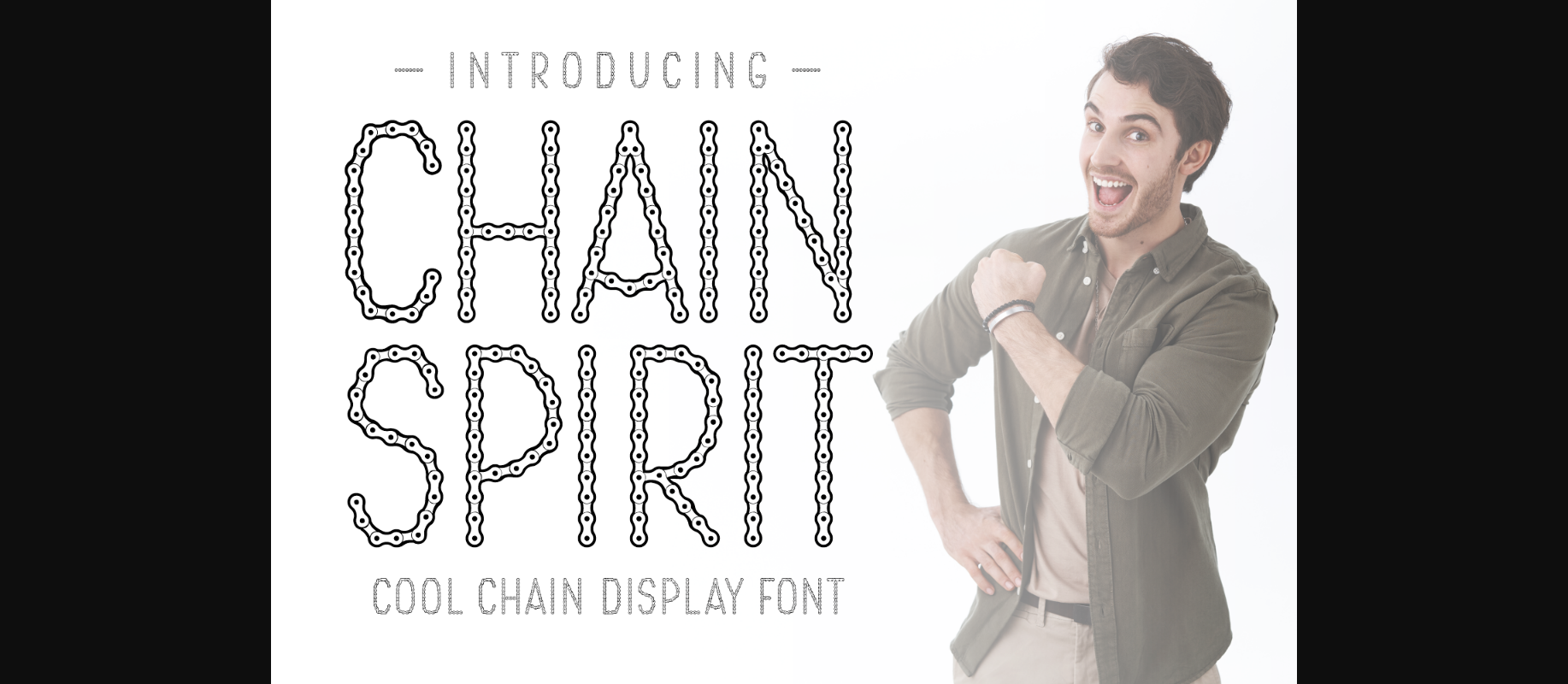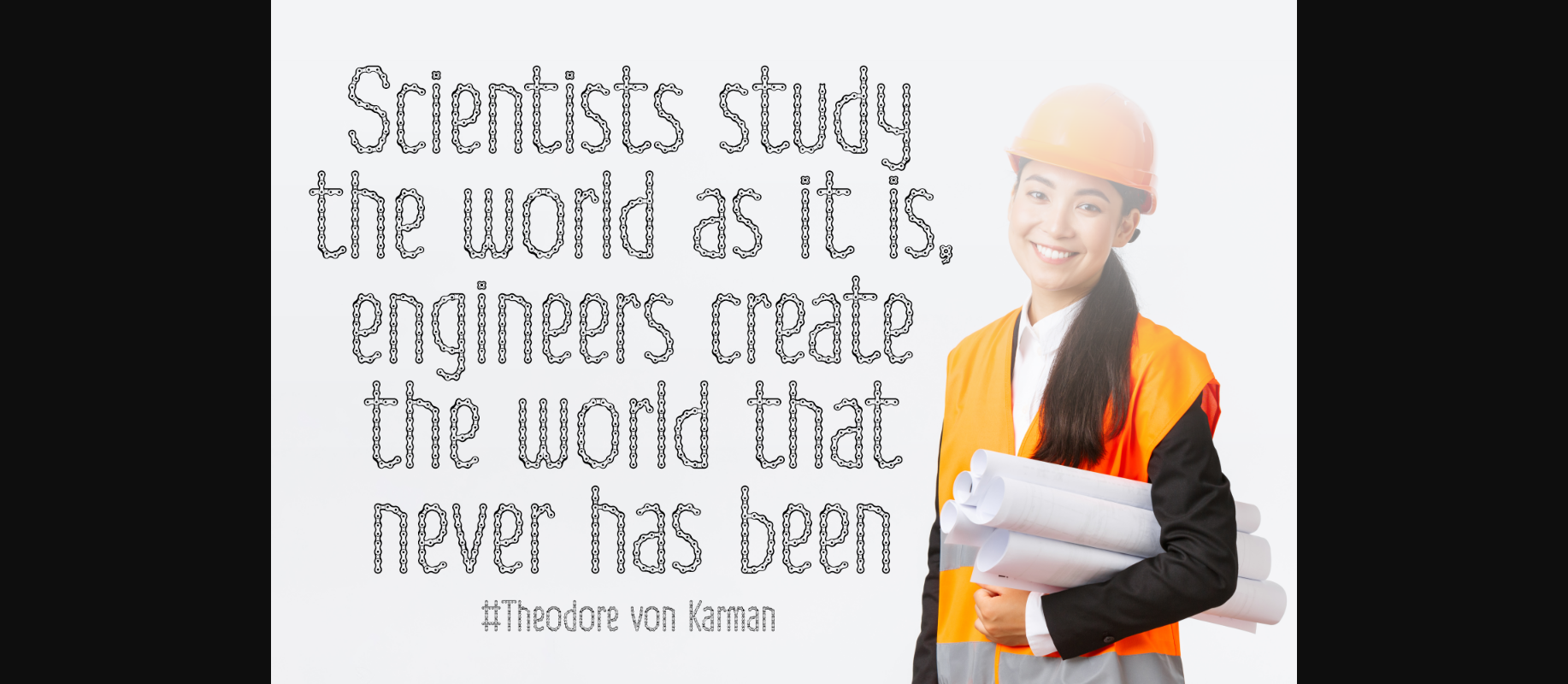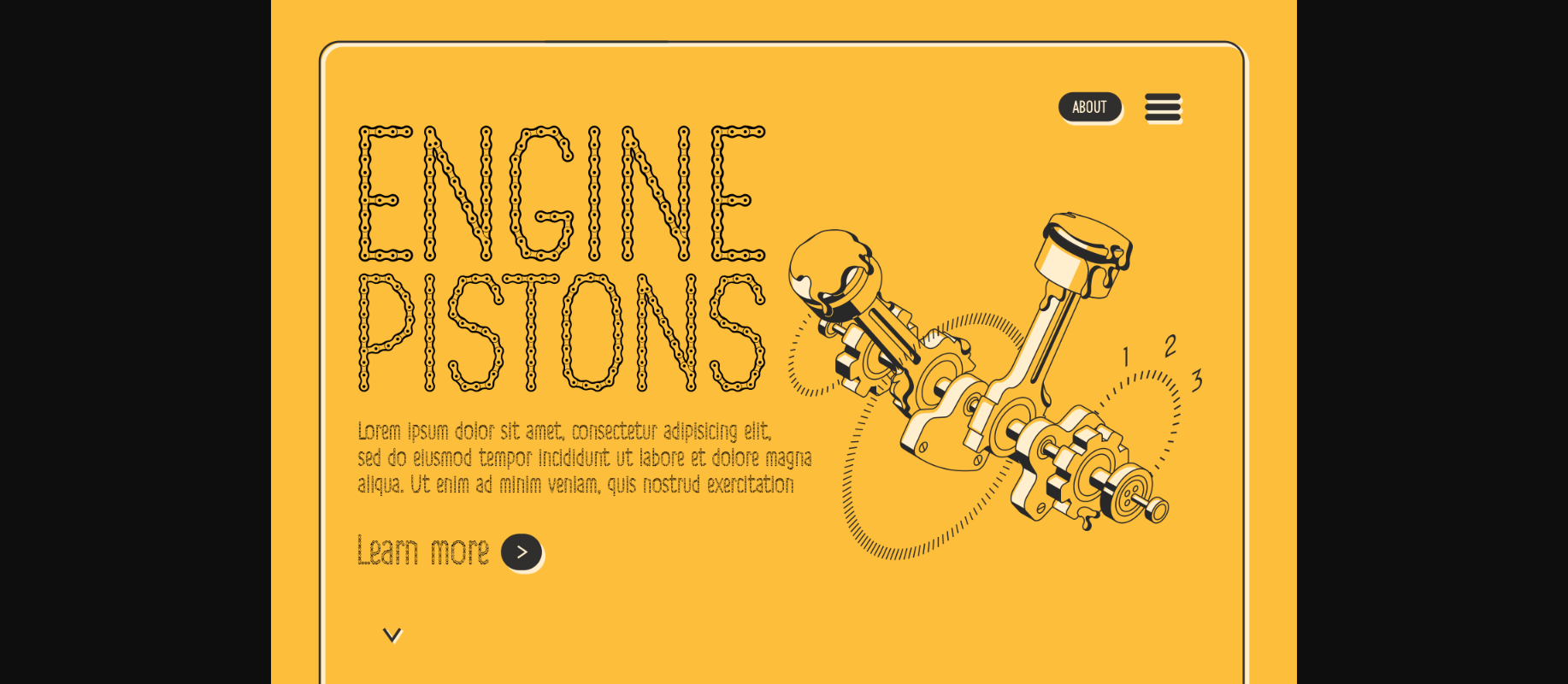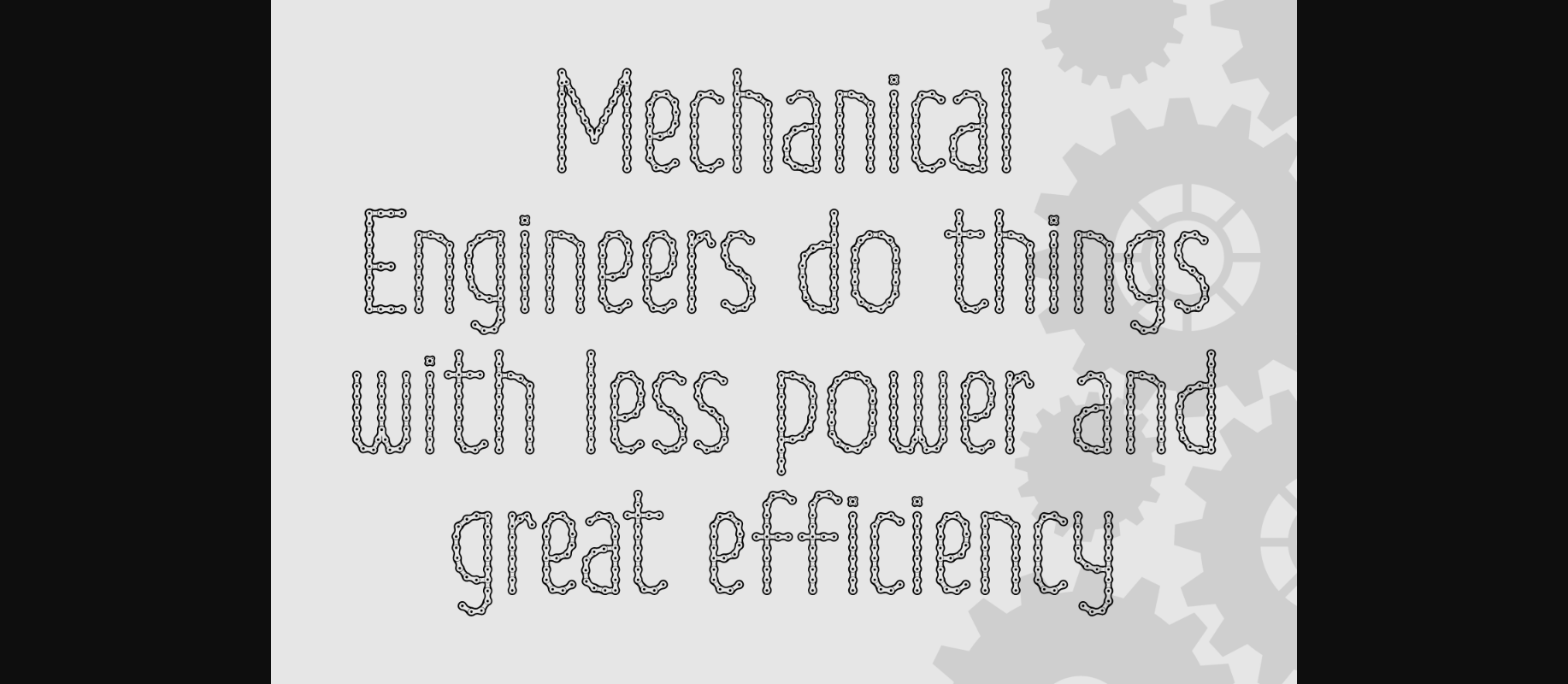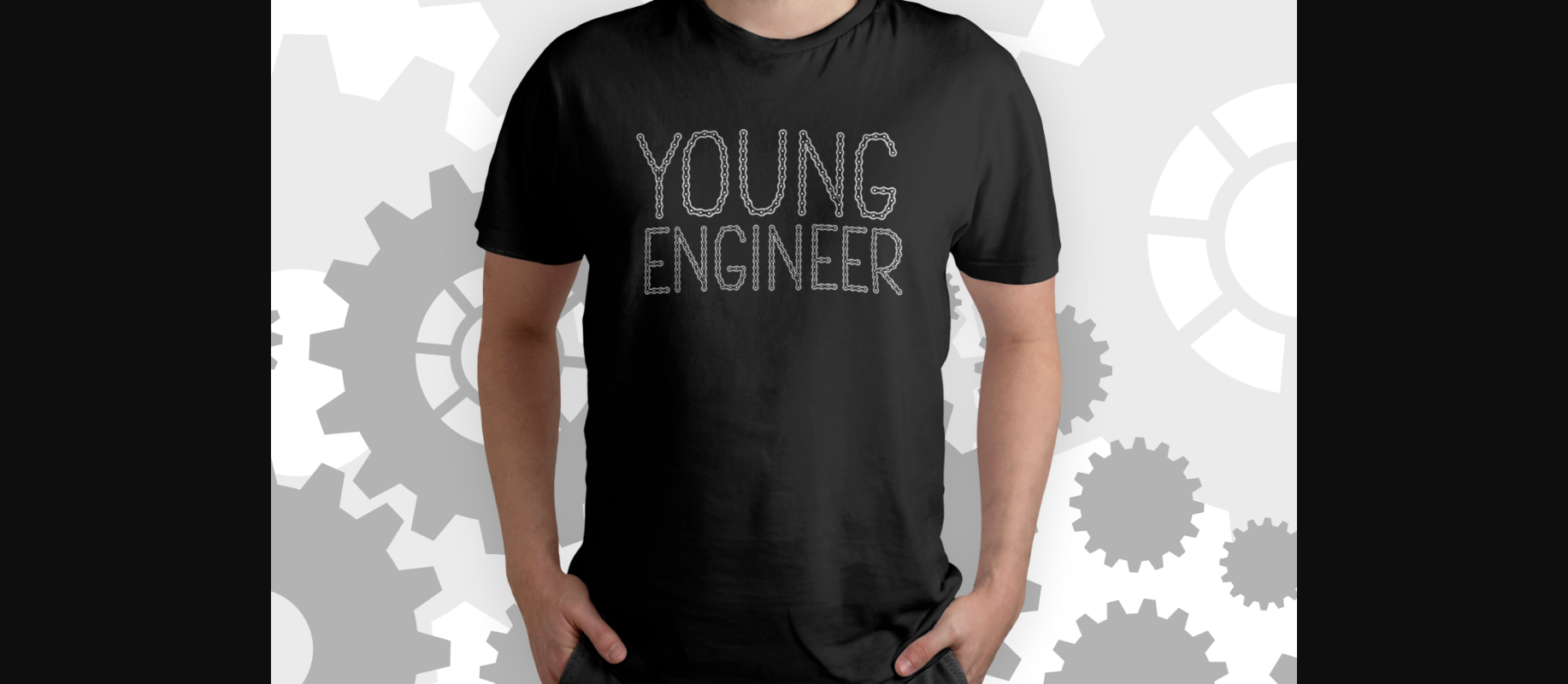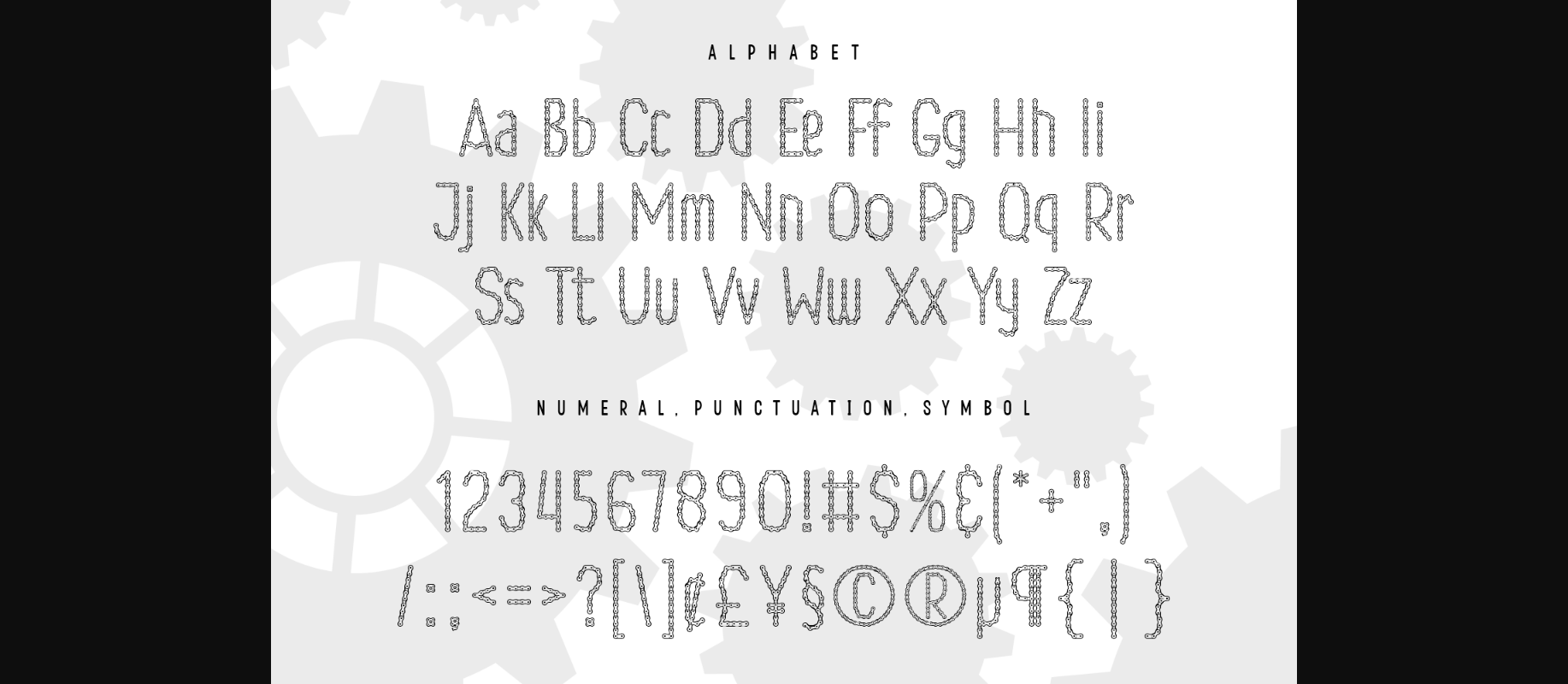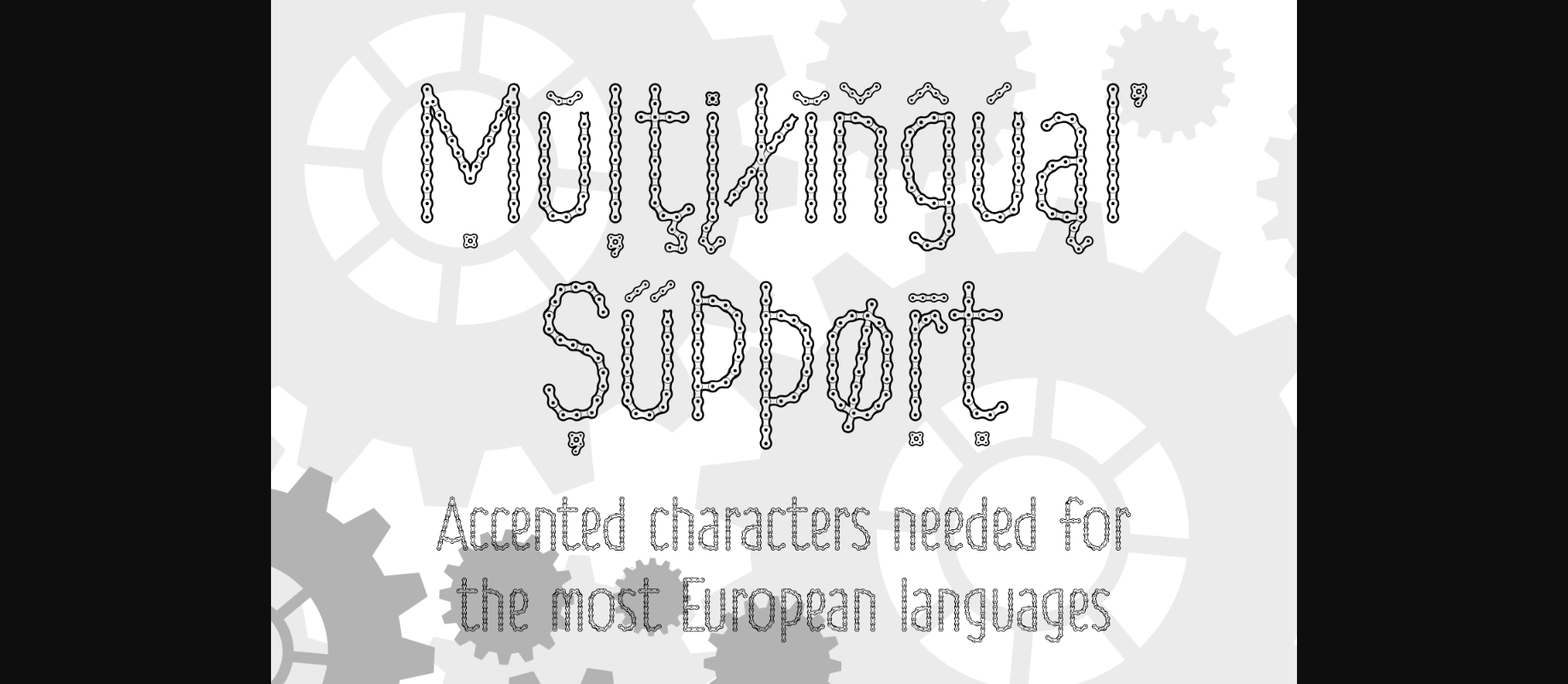
Chain Spirit Font
About Chain Spirit Font
Chain Spirit is the perfect decorative font for science magazine titles, engineering social media posts, or any occasion celebrating physics. This unique typeface is sure to get your audience interested!